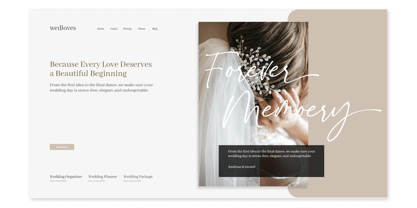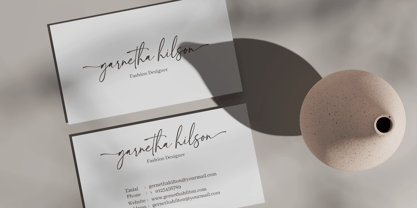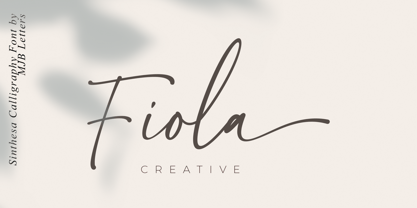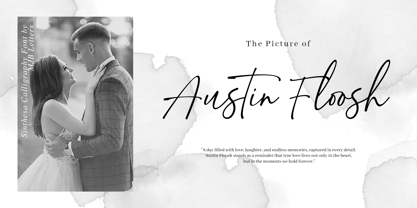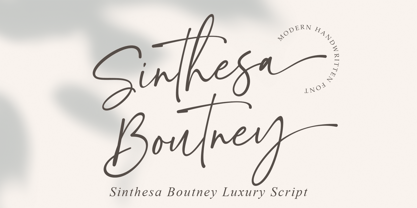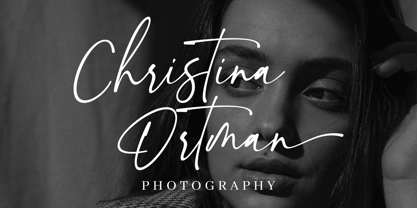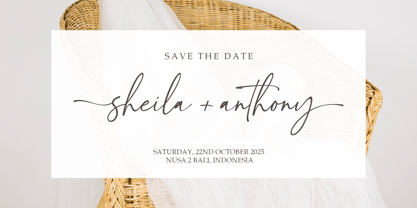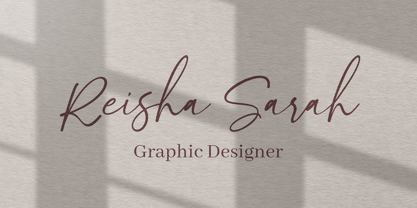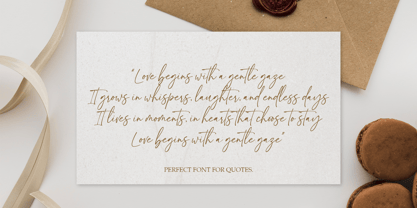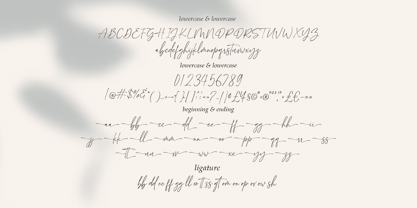
Sinthesa Boutney
by MJB Letters
The Sinthesa Boutney Font Family was designed by Muhammad Mujibulloh and published by MJB Letters. Sinthesa Boutney contains 1 styles. More about this family
Sinthesa Boutney is a luxury handwritten font with a modern calligraphy style that brings elegance and sophistication to every design. Featuring smooth curves, natural strokes, and a timeless handwritten feel, this font is perfect for wedding invitations, branding, fashion logos, packaging, quotes, greeting cards, and social media posts. Designed to reflect both classy and feminine vibes, Sinthesa Boutney adds a premium touch that elevates your creative projects. Its versatility makes it easy to pair with serif or sans serif fonts, creating a balanced and stylish design. Features: Modern handwritten calligraphy style Elegant and timeless luxury feel Perfect for weddings, logos, fashion, and packaging Easy to pair with other font styles If you’re looking for a font that combines handcrafted elegance and luxury, Sinthesa Boutney – Luxury Handwritten Font is the perfect choice for your next project.
Designers: Muhammad Mujibulloh
Foundry: MJB Letters